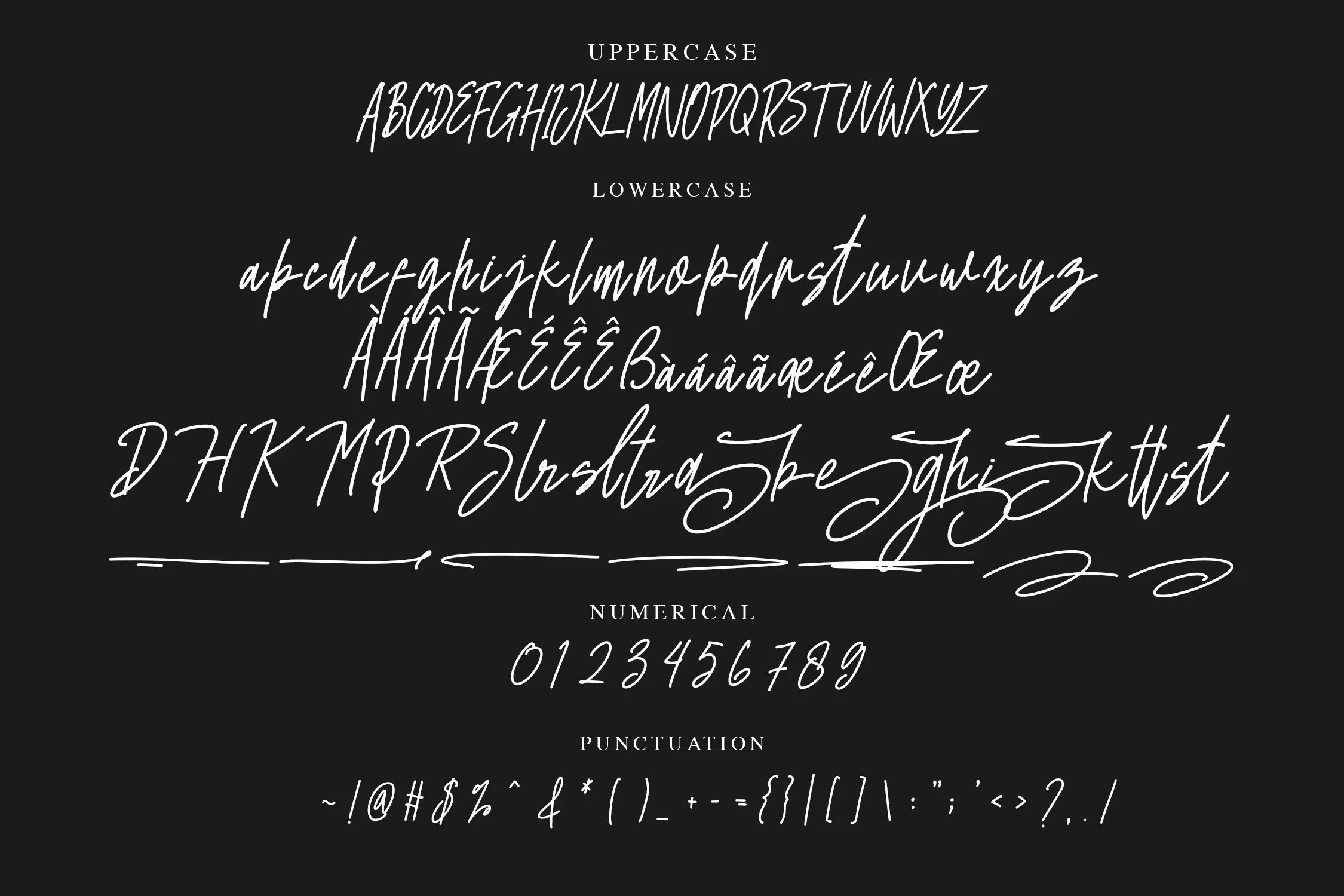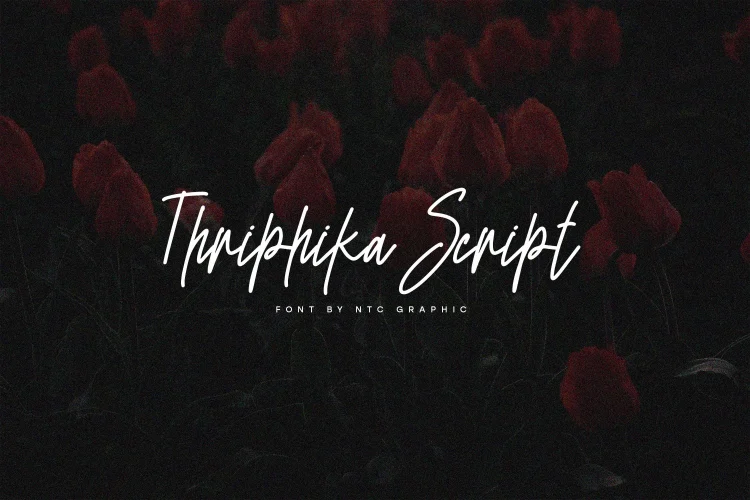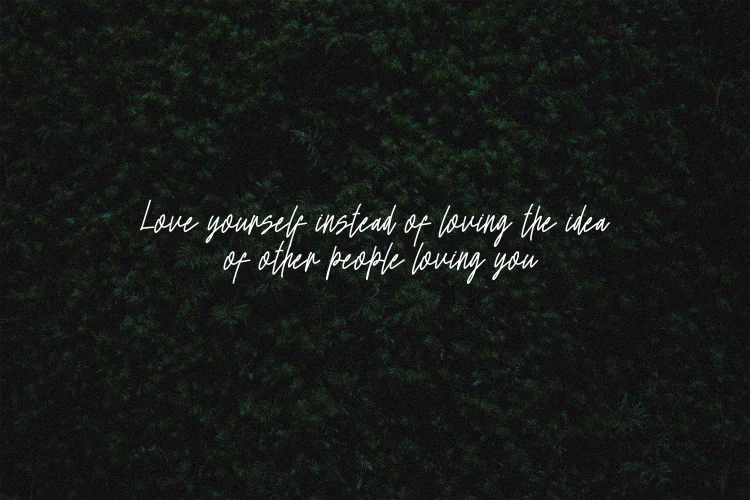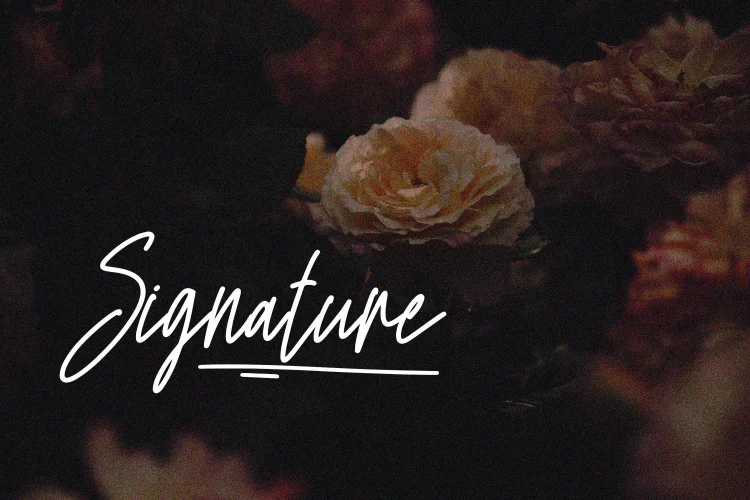
Thriphika Script is a beautiful script font with clean signature handwritten style. Is a font style that is made with scratches and curvature shapes font characters are very beautiful. Can be applied to support the graphic appearance of the product to be more attractive and unique. This font is suitable for making previews and covers, wedding invitations, logo designs, shirt designs, and other feminine graphic needs.
- Ligature
- Stylistic Alternate
- Swashes
- Multilingual Support